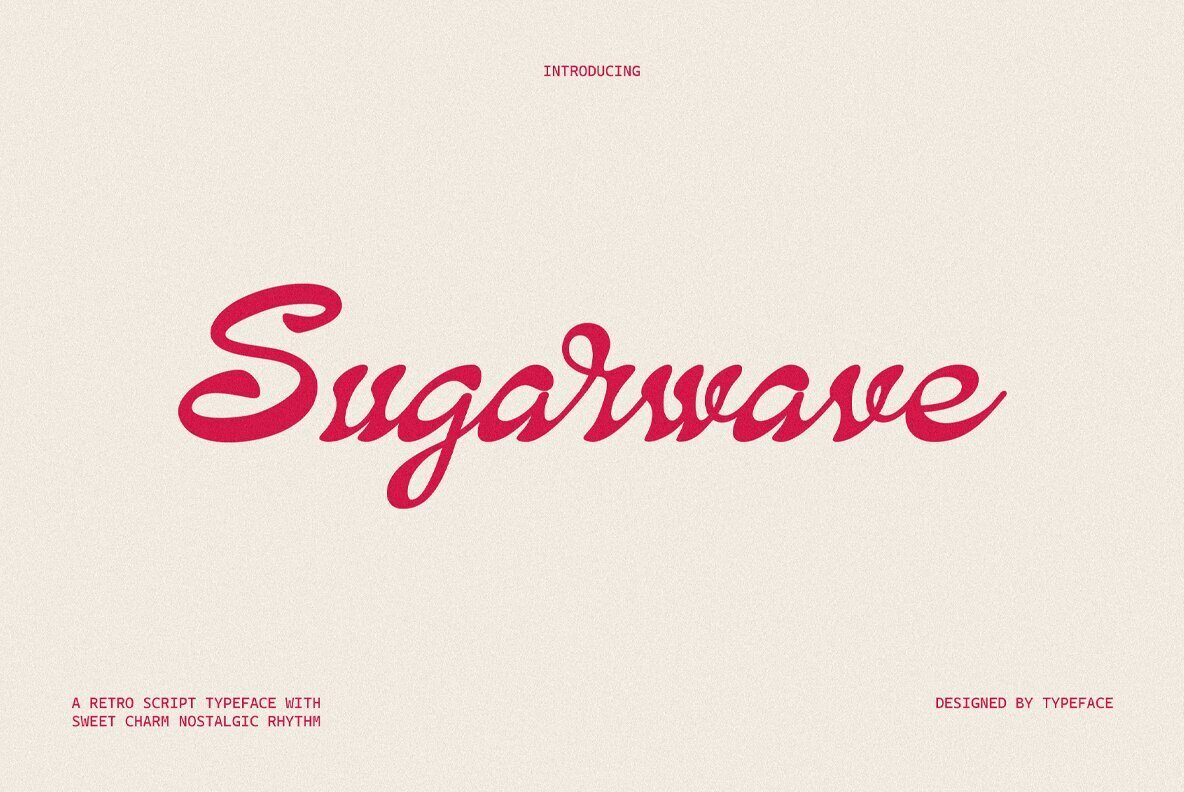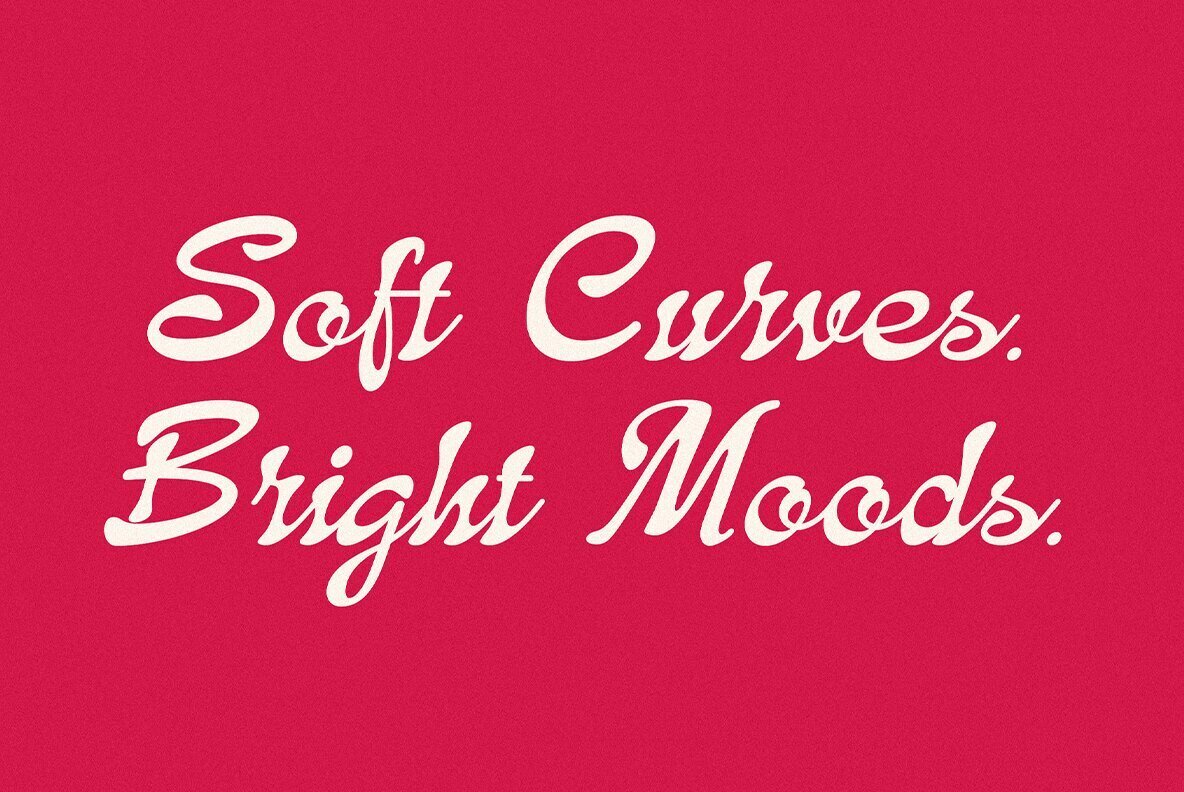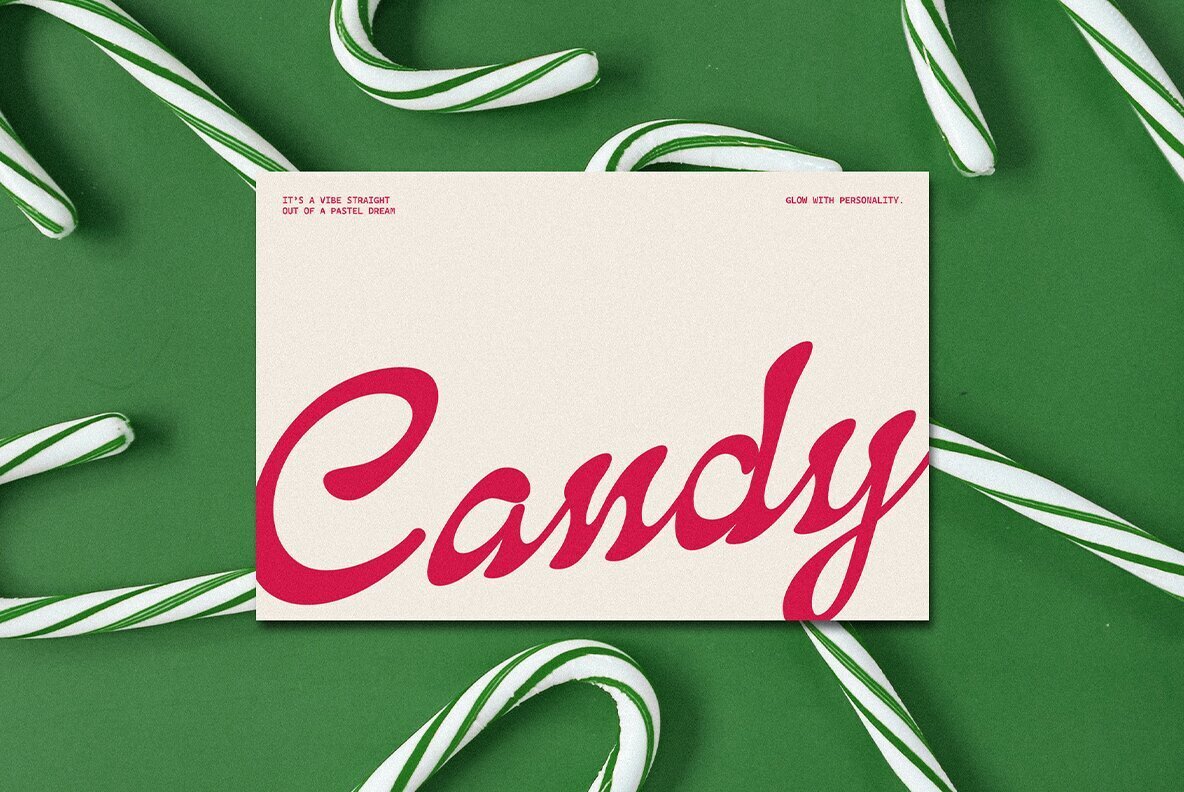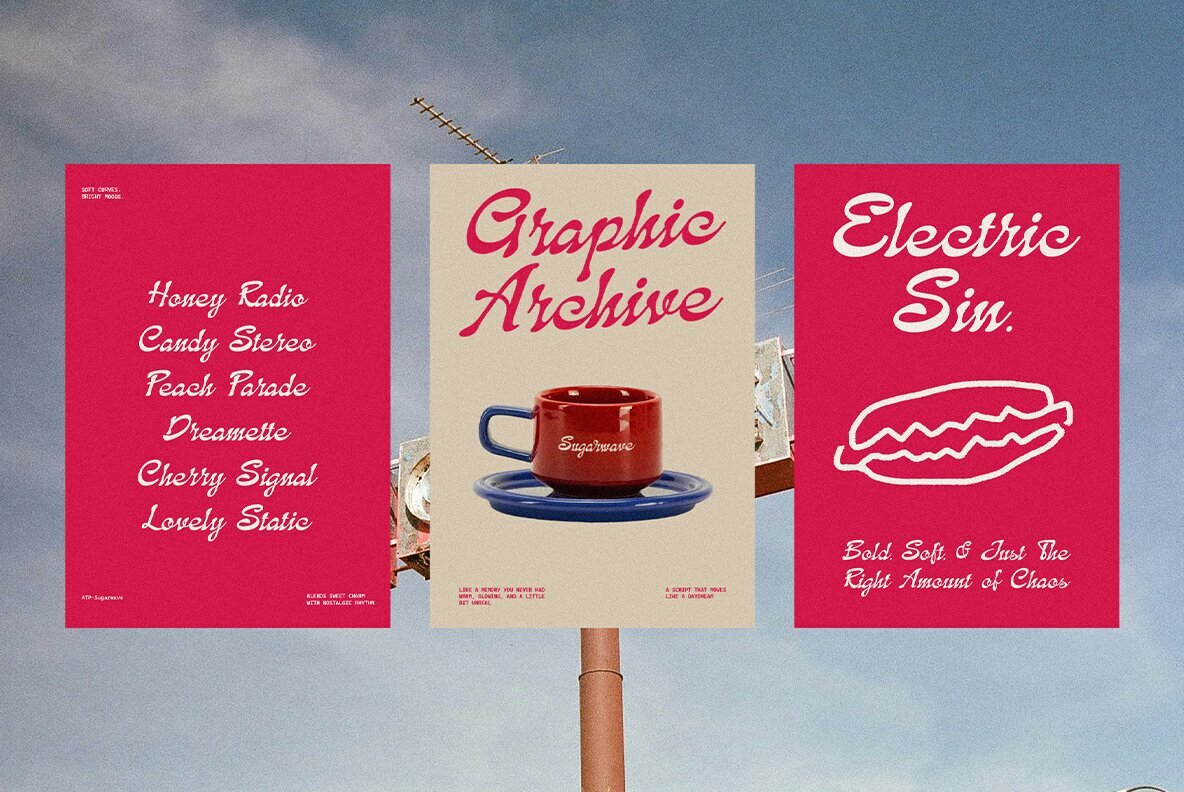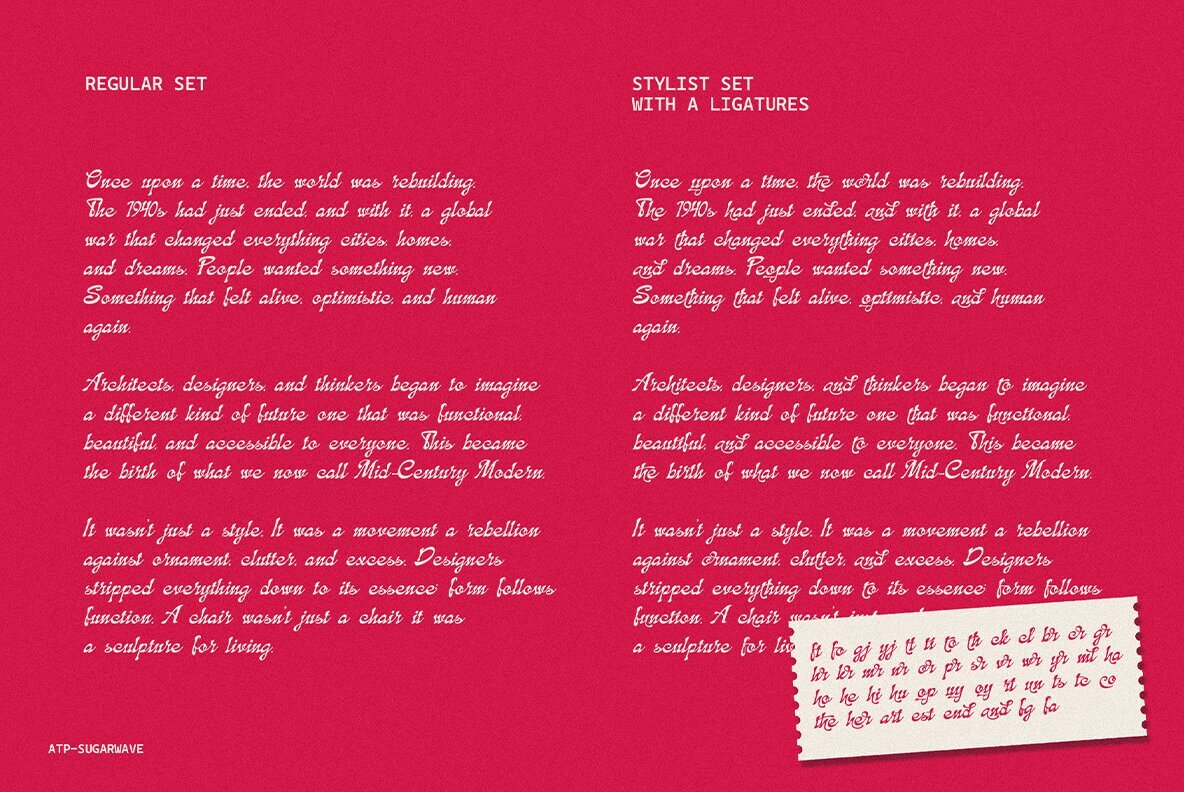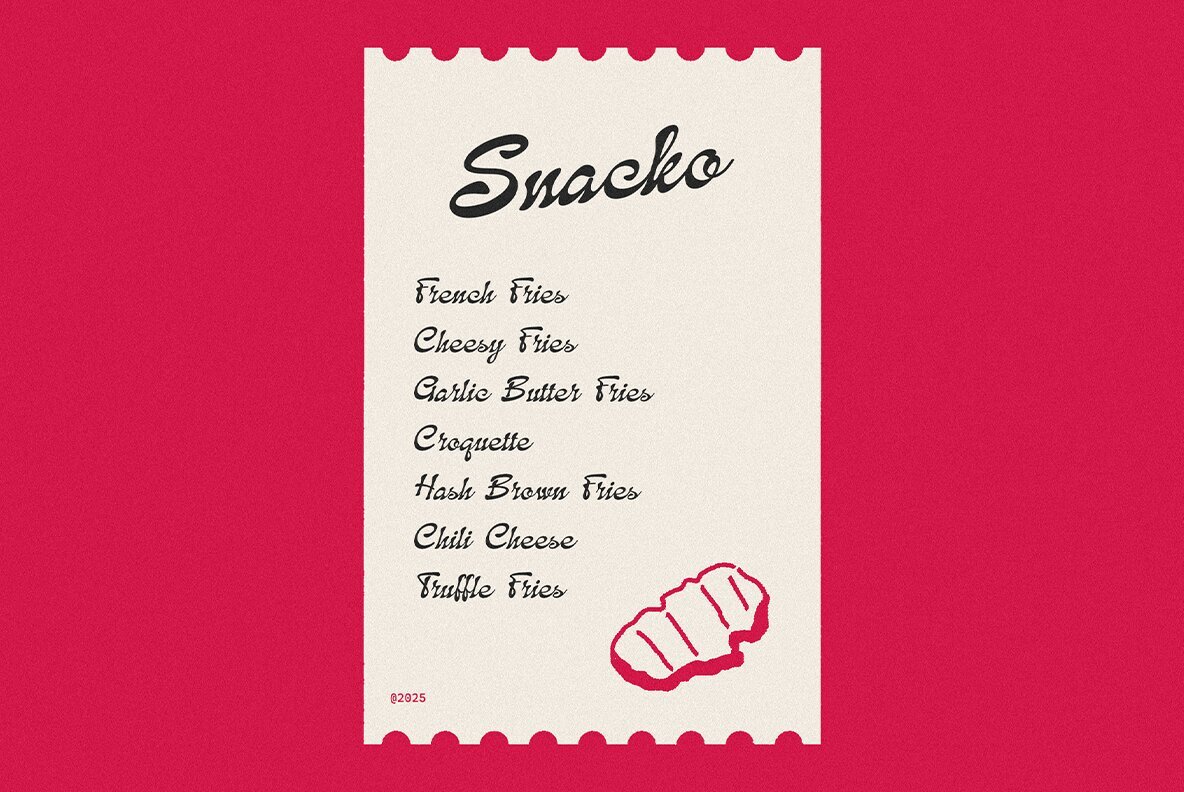
Sugarwave Font
ATP Sugarwave Regular
Sugarwave captures the playful spirit of endless summer and nostalgic neon nights. This vibrant typeface pairs sugar-sweet curves with retro-inspired rhythm, making every letter feel animated and full of life. Its design channels the sensation of pastel dreams, soft vinyl static, and carefree playlists, inviting users to add a burst of character to any visual project. Perfect for designers seeking a bold yet approachable style, Sugarwave stands out in logos, posters, and headline graphics. Each detail is crafted to help your work radiate individuality and confidence, providing the ideal blend of vintage vibe and modern flair.Sugarwave Font: Retro Energy with a Modern Twist